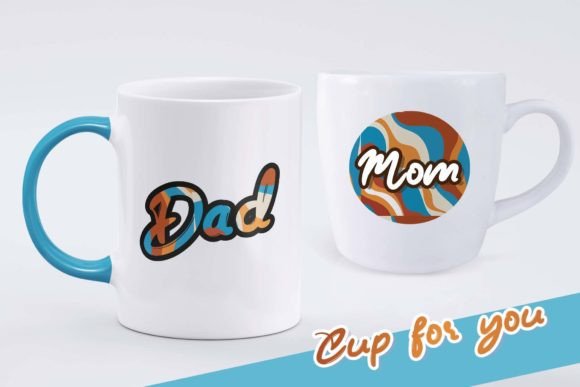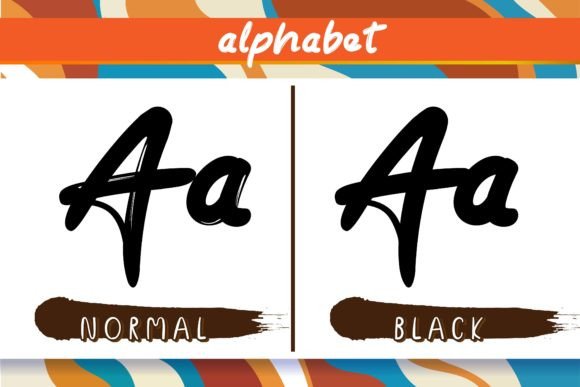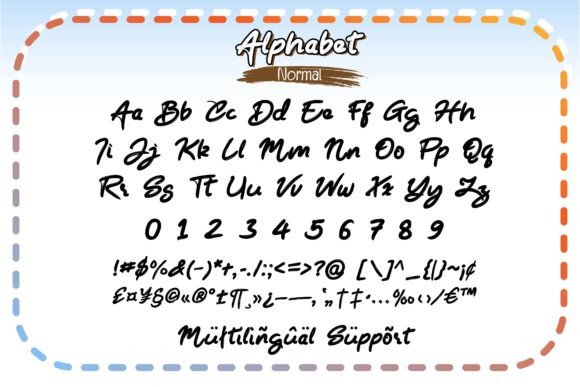
Introduction to Flickie Font
Remember that moment when you stumbled upon the perfect font to elevate your design project? It’s like the missing piece of a puzzle finally falls into place. For designers, discovering a high-quality font like Flickie Font can be a game-changer. This cool, vintage display font has the power to transport your creative project to a new level.
With its unique, handwritten style, Flickie Font is the perfect addition to any design. Whether you’re working on a branding project or creating a social media graphic, this font is sure to make your designs stand out. And the best part? Flickie Font is available for free download, making it a valuable resource for designers of all levels.
Flickie Font
- High-quality design: Flickie Font offers a unique and creative design that can be used for various projects.
- Transparent background: This font features a transparent background, making it easy to layer and customize in your design.
- Size and resolution: The font comes in a range of sizes and resolutions, making it suitable for various design applications.
- Perfect for creative projects: Flickie Font is ideal for use in creative projects, such as graphic design, digital art, and typography.
- Design resource: This font serves as a valuable design resource for designers and artists looking for a unique and creative font to enhance their work.
Honest Review: Flickie Font
I recently stumbled upon the Flickie Font, and I must say, it’s been a game-changer for my creative projects. This high-quality font has a unique charm to it, and I love how versatile it is.
- ✨ It’s perfect for projects that require a fun and playful vibe. I’ve used it for various designs, from logos to posters, and it always adds a touch of whimsy.
- ✨ The font is highly customizable, allowing me to adjust the size, color, and style to fit my design needs.
- ✨ The transparent background feature is a huge plus, making it easy to integrate with other design elements.
However, I do have a few gripes:
- ⚠️ The font can be a bit too ornate for some projects. Sometimes, I find myself wanting a more straightforward, sans-serif font.
- ⚠️ The free download option is great, but I wish there were more variations or styles available for purchase.
Overall, I’m really impressed with the Flickie Font. It’s a valuable design resource that I’ll definitely be using again in the future. Its unique style and high quality make it a great addition to any creative project.
Flickie Font
The Flickie Font is a unique, high-quality design resource that can add a creative touch to your projects. It’s available for free download and features a transparent background, making it easy to integrate into your designs.
To use the Flickie Font in PowerPoint and Word, follow these steps: upload the font file to your Microsoft Office account, select the font from the font library, and apply it to your text. You can use the Flickie Font for creating presentations, documents, or other business materials.
Here are some tips for getting the most out of the Flickie Font: experiment with different font sizes, colors, and styles to create unique designs; use the Flickie Font in combination with other design elements to add visual interest; and don’t be afraid to push the boundaries of traditional typography.
The Flickie Font is a versatile design resource that can be used in a variety of creative projects, including: social media graphics, blog posts, infographics, presentations, and more. Its high-quality design and transparent background make it a great choice for designers who want to add a creative touch to their work.